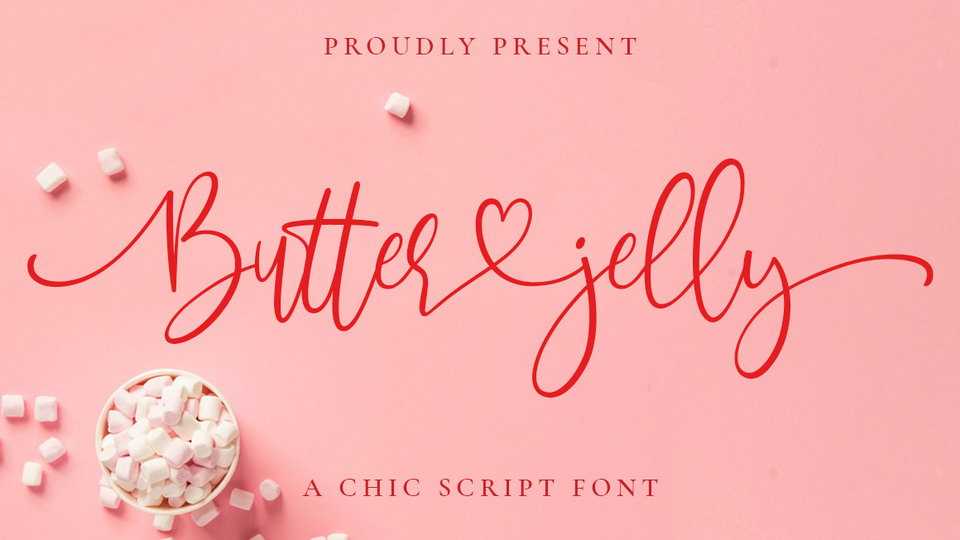
Download Butter Jelly font, a modern calligraphy typeface with handwritten, sophisticated flows. With exaggerated strokes and an bouncy baseline, Butter Jelly is full of hearts and love.
Designer: Typesthetic Studio